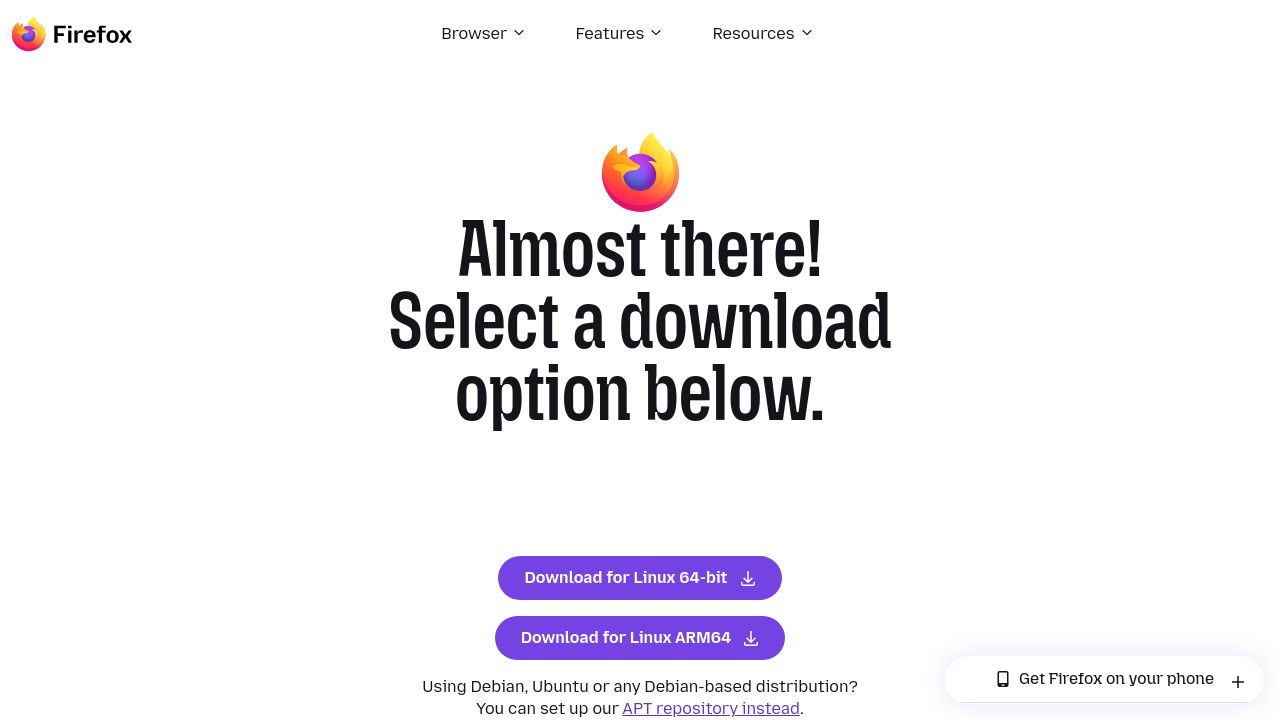
Firefox.com utilizes Mozilla Headline VF and Mozilla Text VF as their primary fonts, reflecting their commitment to a unique and engaging user experience. These custom fonts, with weights ranging from 100 to 900, convey a sense of innovation and accessibility, perfectly aligning with the brand's focus on web browsing and digital privacy. The choice of fallback fonts like Roboto and Segoe UI further enhances readability, ensuring that their content is approachable for a diverse audience of users.
Firefox.com primarily uses Mozilla Headline VF and Mozilla Text VF, both custom fonts designed for their brand identity.
Mozilla Headline VF and Mozilla Text VF offer unique weights and styles that reflect Firefox's innovative spirit, differing from more commonly used fonts like Arial or Helvetica.
Both Mozilla Headline VF and Mozilla Text VF feature a range of weights from 100 to 900, allowing for versatile typography across the site.